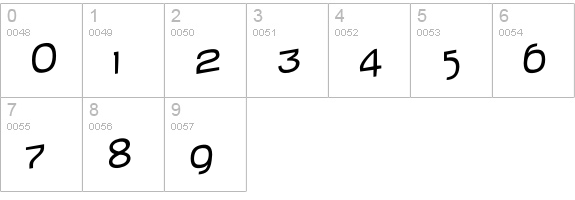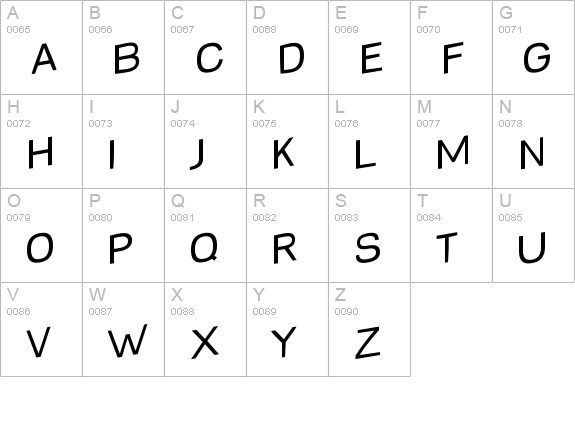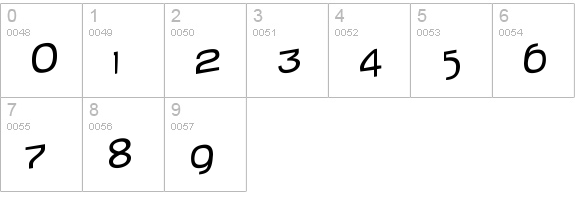
BabyMinePlumpJumping Font Details
Introducing BabyMinePlumpJumping font, a delightful and playful typeface that is sure to bring joy and whimsy to any design project. This font features plump, rounded letters that exude a sense of charm and innocence, making it perfect for children's books, baby shower invitations, or any design that calls for a touch of sweetness. BabyMinePlumpJumping font is not only aesthetically pleasing, but it also offers the added benefit of being freely available to download. Yes, you read that right - this fantastic font can be yours at absolutely no cost! Thanks to its generosity, FontsMarket.com is offering BabyMinePlumpJumping font as a free download, allowing designers, artists, and creatives of all kinds to access this delightful typeface and bring their visions to life. Whether you're designing a nursery wall art, creating a playful logo for a children's clothing brand, or crafting a whimsical greeting card, BabyMinePlumpJumping font is the perfect choice to add a touch of youthful exuberance and charm. Its rounded edges and plump letterforms create a sense of softness and friendliness, instantly capturing the hearts of both children and adults alike. With its wide range of characters, including uppercase, lowercase, numbers, and punctuation marks, BabyMinePlumpJumping font offers versatility and flexibility in your design projects. Its legibility ensures that your message is conveyed with clarity, while its unique style adds a touch of originality to any composition. So why wait? Embrace the magic of BabyMinePlumpJumping font and let your creativity soar! Download this enchanting typeface for free at FontsMarket.com and unlock a world of endless possibilities. Whether you're a professional designer or a passionate hobbyist, BabyMinePlumpJumping font is the perfect addition to your font library. Don't miss out on this incredible opportunity to bring a touch of whimsy and charm to your design projects - get BabyMinePlumpJumping font today and let your creativity shine!